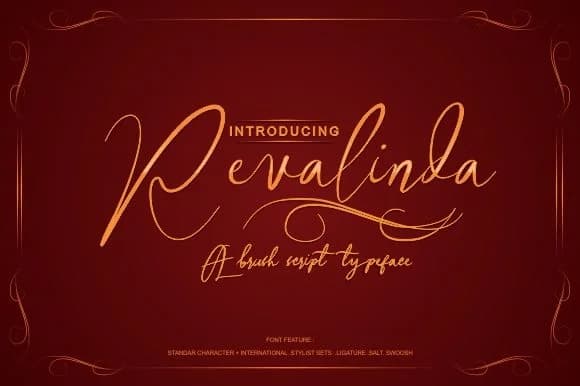
Revalinda, designed by victoriant99, captures the organic rhythm of genuine handwriting through letterforms that feel pen-drawn rather than digitally constructed. Each curve holds that natural, unforced quality of human touch without affectation. The script maintains soft, approachable confidence without veering into heavy decoration or forced flourishes.
This font excels on projects where authenticity and warmth genuinely connect with audiences. Wedding invitation suites gain unpretentious elegance from it, while boutique skincare packaging, candle labels, and handmade cosmetic branding all read more credible and personal. Stationery design, custom greeting cards, hand-lettered signage, and blog headers that need genuine personality without artificial polish all work equally well. Product labels, craft brand identities, and small-batch packaging benefit from its homemade-but-intentional feel. The letterforms stay readable even when scaled small, making it useful across both display sizes and compact applications. It delivers that genuine, immediately trustworthy quality that audiences respond to when they're looking for something truly real and less corporate.
Revalinda Font is a script font that shines as a display or heading face. Pair it with a clean sans-serif or serif font for body text β the contrast creates a clear hierarchy while the two styles stay balanced and easy to read.